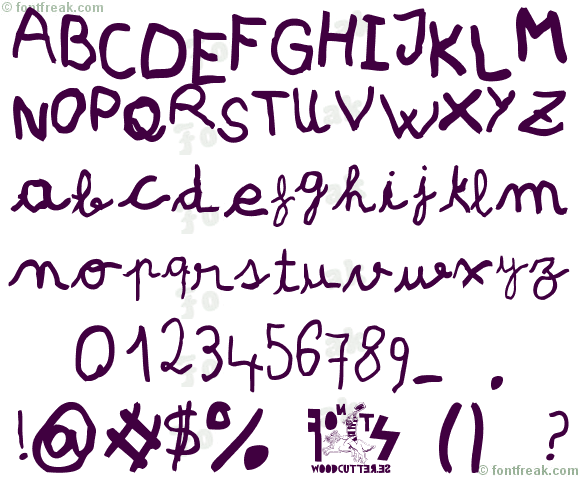
pree-school
About pree-school
The pree-school font, created by woodcutter Manero, is a distinctive handwritten typeface that captures the whimsical essence of childhood creativity. This decorative font features a playful, organic style reminiscent of early school days, making it an excellent choice for projects aimed at children or those reflecting a youthful spirit. The strokes vary in weight, creating an inviting and informal character that stands out while maintaining legibility. The uneven spacing and charmingly imperfect forms contribute to its unique charm, evoking a sense of spontaneity and fun.
This font is particularly well-suited for a variety of applications. For instance, it's ideal for designing vibrant classroom posters, where its playful nature can engage young learners. Additionally, the pree-school font can enhance children's book covers, capturing the imagination of readers from the outset. It works wonderfully for birthday party invitations, adding a festive touch that appeals to both kids and adults alike. Furthermore, small business owners targeting a family-friendly market, such as toy stores or daycare centers, will find this font a perfect fit for their branding materials.
What sets the pree-school font apart is its ability to evoke nostalgia while appealing to modern aesthetics. Its unique character and spirit make it a standout choice for anyone looking to inject a sense of fun and whimsy into their designs. With the pree-school font free download, you can explore the endless possibilities it brings to your creative projects.